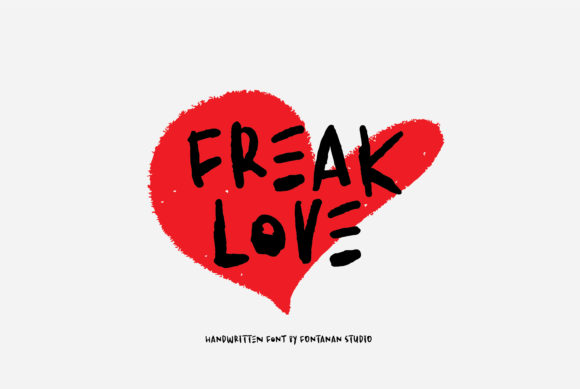
In a realm where expression thrives and individuality reigns supreme, where creativity dances on the canvas of digital art, there exists a font that embodies the essence of freedom, daring, and unapologetic style: Freak Love.
Prepare to embark on a typographic journey like no other as you discover the captivating allure of Freak Love, a display font that oozes street art vibes and pulsates with the energy of urban exploration. Its bold strokes, reminiscent of graffiti-adorned walls and vibrant street murals, command attention, demanding to be seen and heard amidst the mundane monotony of everyday fonts.
Step into the world of Freak Love, where every letter is a stroke of genius, every word a declaration of individuality. Unleash your creative spirit and let your designs take on a life of their own, whether you're crafting eye-catching t-shirts that speak to the rebel in you, sportswear that embodies the essence of athleticism and energy, logos that leave an indelible mark on the minds of your audience, or advertisements that ignite a spark of inspiration.
Freak Love is more than just a font; it's a statement. A declaration of your unique style, your refusal to conform, your unwavering belief in the power of self-expression. With each glyph and swash meticulously crafted and PUA encoded for effortless access, Freak Love empowers you to weave your creative magic seamlessly, transforming your designs into masterpieces that resonate with your audience.
Break free from the shackles of ordinary fonts and embrace the audacity of Freak Love. Let your creativity soar as you explore the boundless possibilities it offers, pushing the boundaries of design and leaving an indelible mark on the hearts and minds of those who encounter your work.